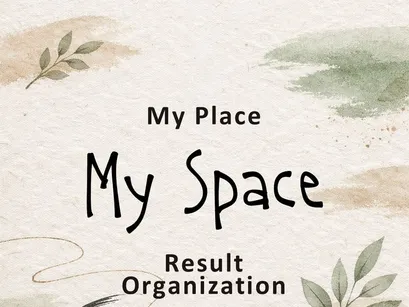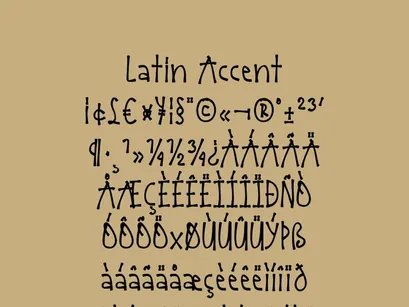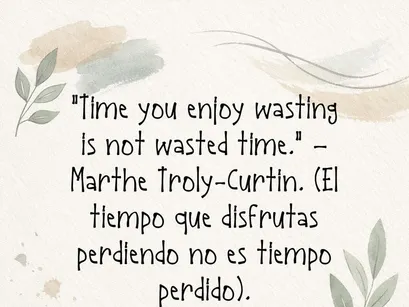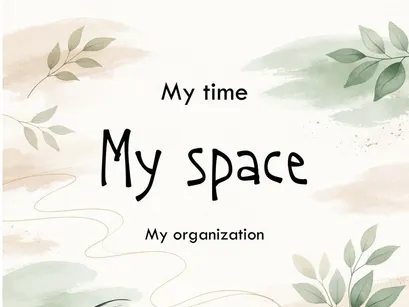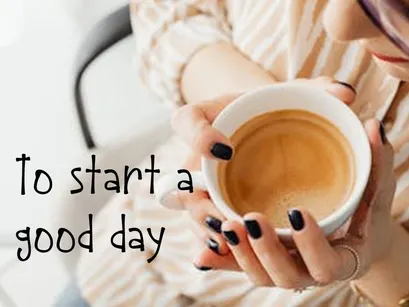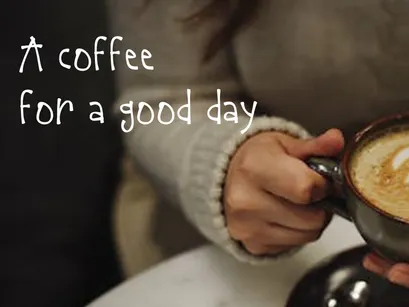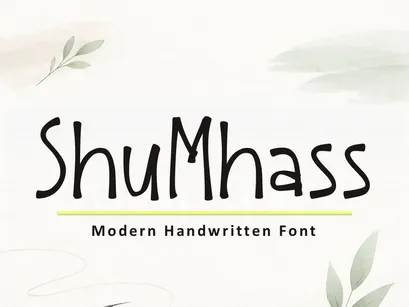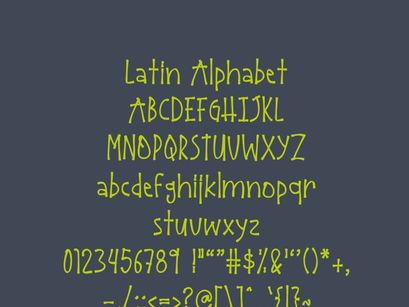
ShuMhass is a modern handwritten font with smooth, consistent strokes that convey freshness, organization, and serenity. Designed for creative projects, planners, branding, and digital content, it combines naturalness with contemporary elegance.
• Full coverage of Latin characters and accents.
• Ideal for titles, inspirational quotes, and personal organization projects.
Perfect for those seeking a modern, clean, and balanced handwritten font.